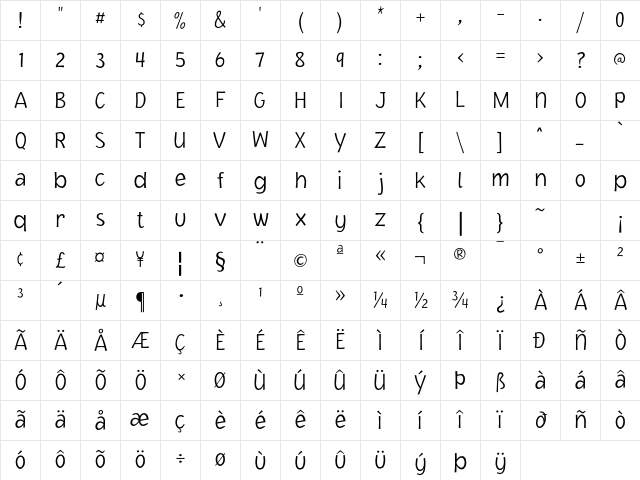
JacobyICG XLight
Style: XLight
JacobyICG Family
JacobyICG XLight
Design Context for JacobyICG
JacobyICG is a composed and adaptable typeface that performs quietly and consistently across a wide range of design contexts. Its slender proportions lend an understated elegance to any composition.